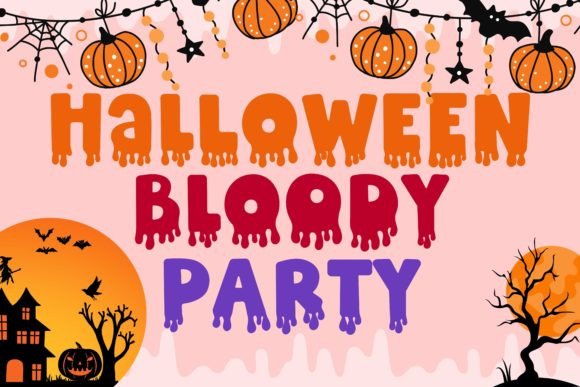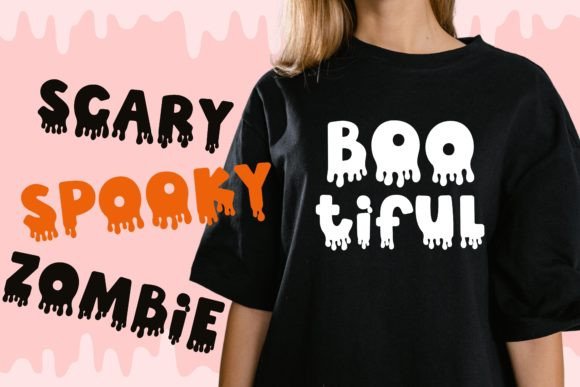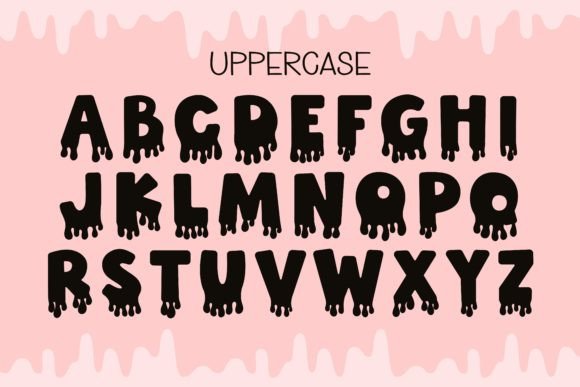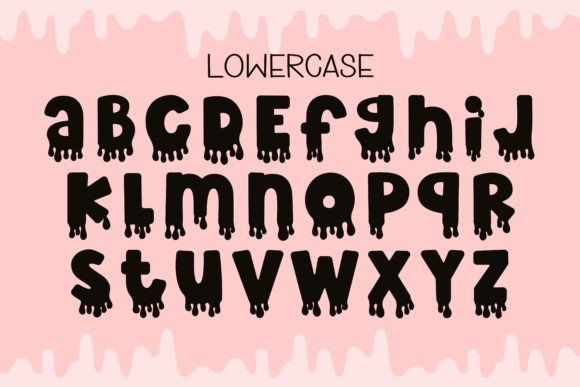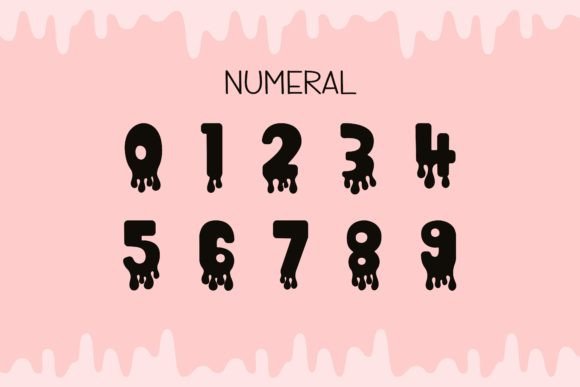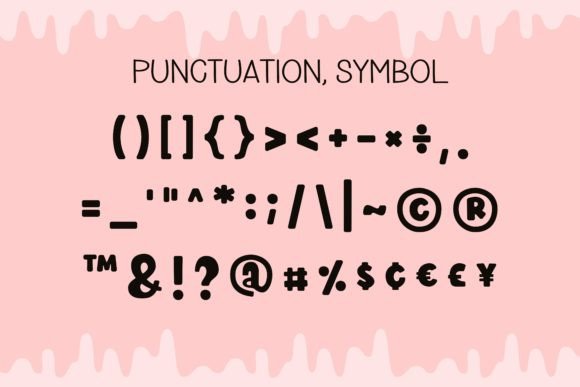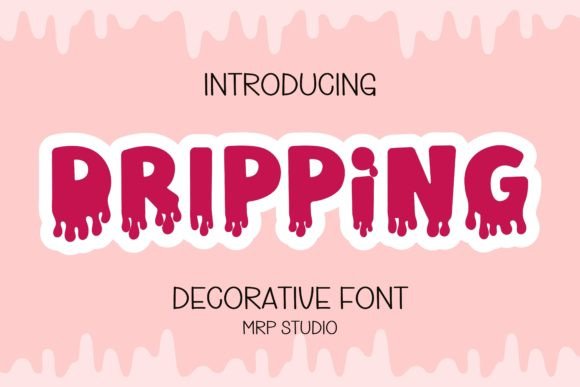
Dripping Font: Add a Spooky-ooky Touch to Your Designs
Are you looking for a font that can add a dash of spookiness and adorability to your designs? Look no further than the Dripping Font! This decorative font is perfect for designers and crafters who want to create eye-catching projects that stand out from the crowd. In this article, we’ll explore the features of the Dripping Font, its uses, and how it can elevate your designs to the next level.
What is Dripping Font?
Dripping Font is a unique and creative font designed in a spooky and adorable decorative style. Its drippy, irregular shape gives it a playful and fun touch that’s perfect for a variety of projects. The font is highly versatile and can be used for both personal and commercial projects, making it a great addition to any designer’s toolkit.
Features of Dripping Font
- Spooky and Adorable: The Dripping Font has a perfect blend of spookiness and cuteness, making it ideal for Halloween-themed projects, children’s party decorations, and more.
- Decorative Style: The font’s decorative style is perfect for adding a touch of whimsy and playfulness to your designs.
- Highly Versatile: The Dripping Font can be used for a wide range of projects, from back to school decorations to Halloween party invites.
Uses of Dripping Font
The Dripping Font is perfect for a variety of projects, including:
- Back to School Decorations: Add a fun and playful touch to your back to school decorations, such as banners, posters, and worksheets.
- Halloween Party Decorations: Create spooky-ooky Halloween party decorations, such as invitations, banners, and garlands.
- Children’s Party Decorations: Use the Dripping Font to create fun and colorful decorations for children’s parties, such as birthday invitations and party hats.
- Crafting Projects: Add a personal touch to your crafting projects, such as scrapbooking, card making, and DIY decorations.
Tips for Using Dripping Font
Here are some tips for using the Dripping Font in your designs:
- Experiment with Colors: The Dripping Font looks great in bright and bold colors, so don’t be afraid to experiment with different color combinations.
- Mix and Match: Mix and match the Dripping Font with other fonts to create a unique and eye-catching design.
- Add Graphics: Add graphics and illustrations to your design to make it more visually appealing.
- Keep it Simple: Don’t overdo it – keep your design simple and clean to make the Dripping Font stand out.
The Dripping Font is a fun and versatile font that’s perfect for designers and crafters who want to add a spooky-ooky touch to their designs. With its decorative style and highly versatile nature, it’s ideal for a wide range of projects, from back to school decorations to Halloween party decorations. So why not give it a try and see how it can elevate your designs to the next level?